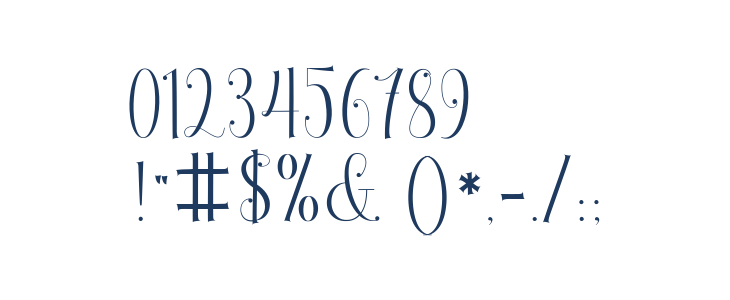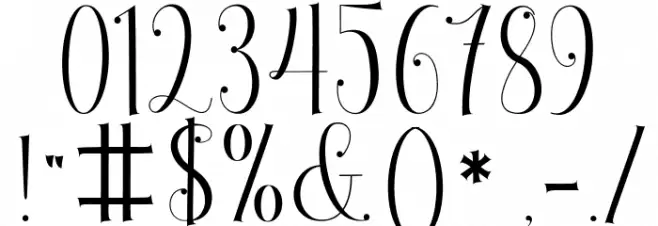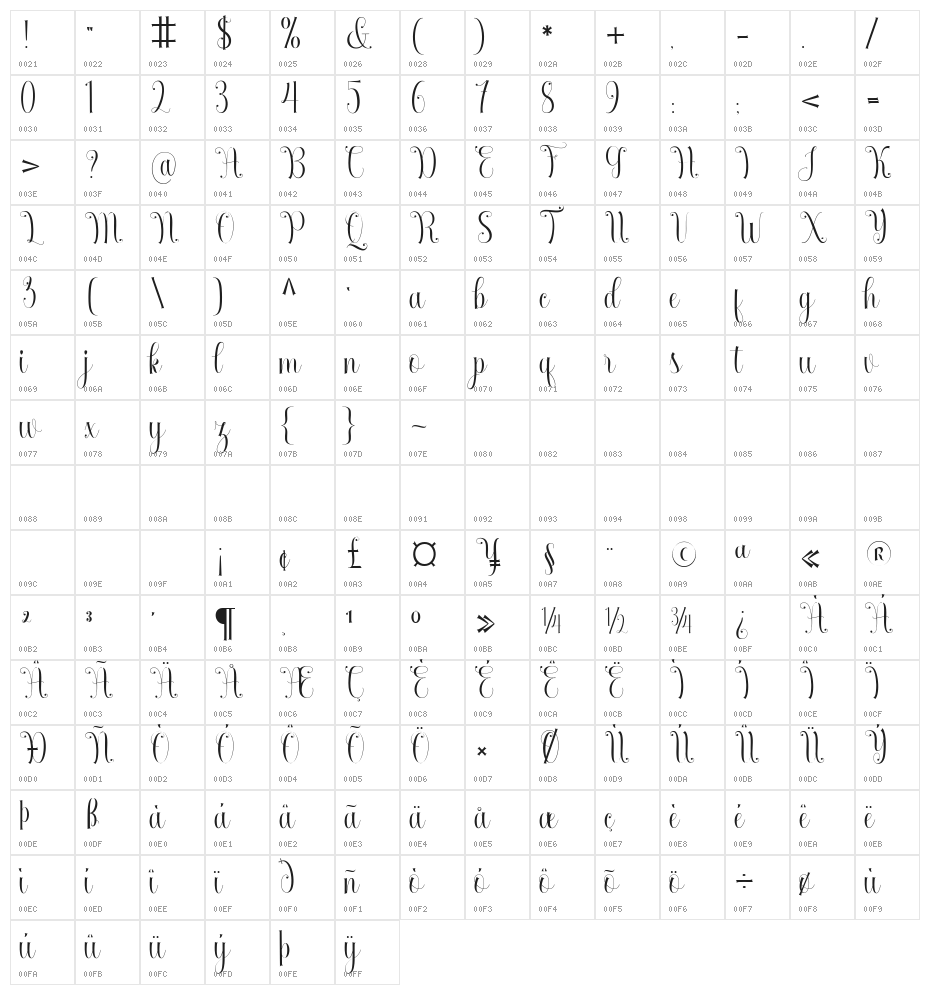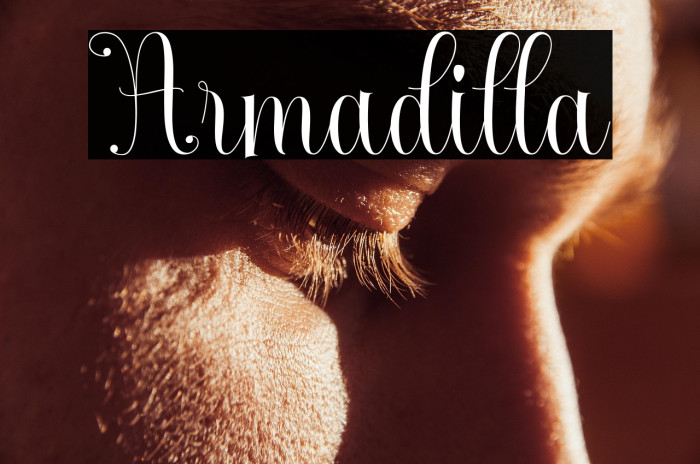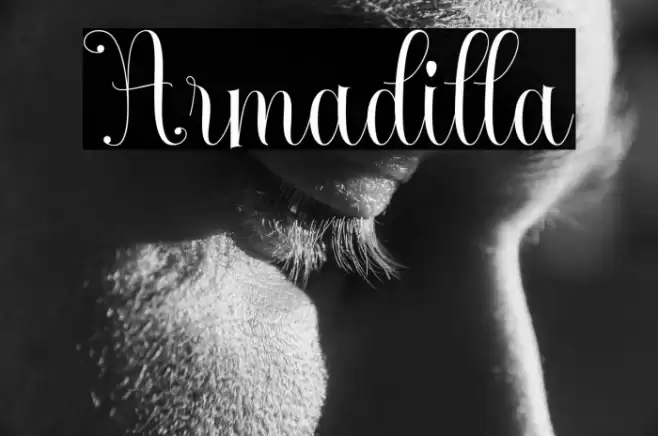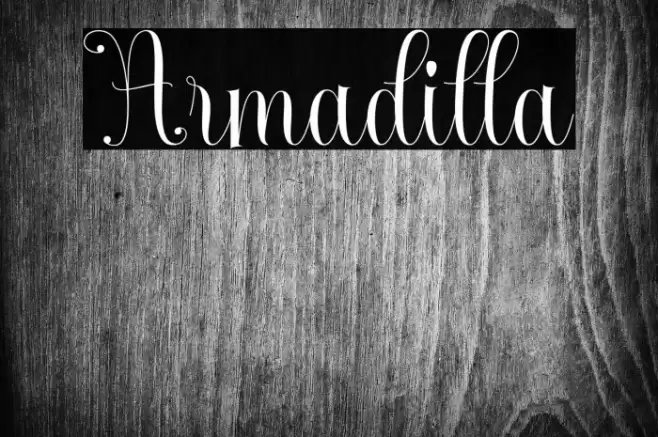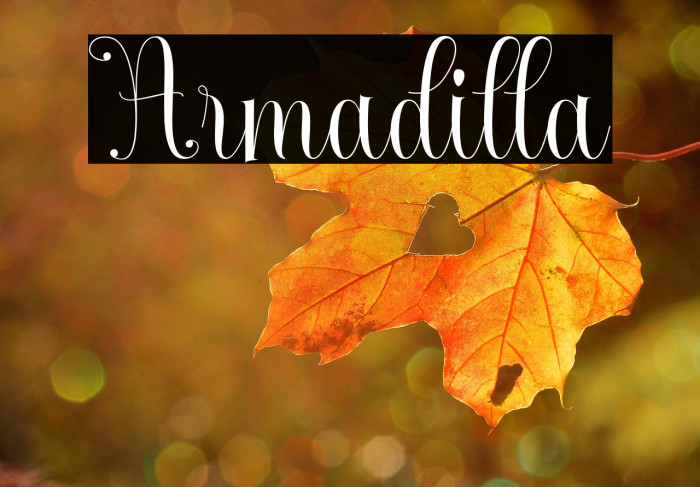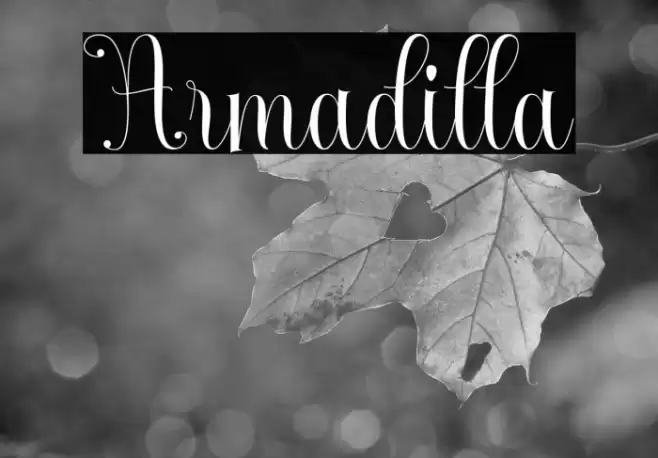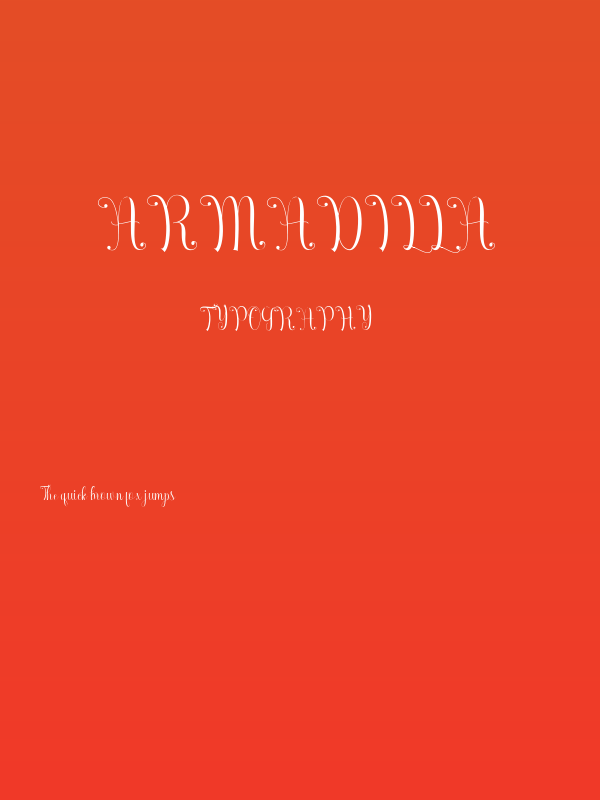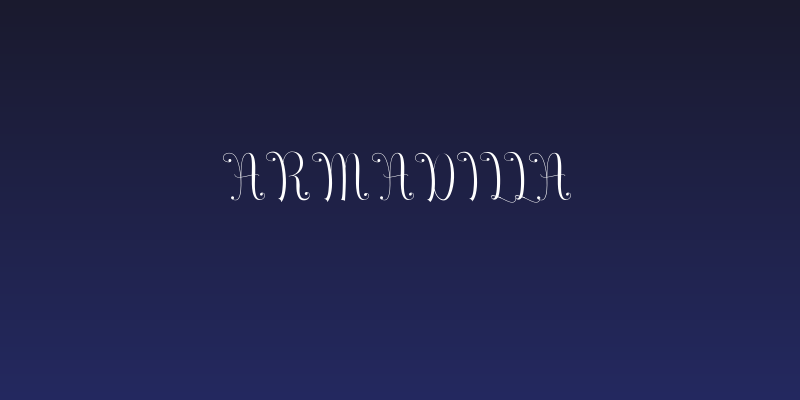
Armadilla Font
Armadilla Description
This font features an elegant and decorative style with a script-like appearance. The uppercase letters are adorned with intricate swirls and loops, adding a touch of sophistication and flair. The lowercase letters maintain a flowing, cursive style that complements the ornate uppercase characters. The numerals are consistent with the overall decorative theme, featuring slight embellishments that enhance their visual appeal. Special characters are designed with similar attention to detail, ensuring a cohesive look across all elements. This font's unique style makes it suitable for projects that require a touch of elegance and creativity.
| Use Case | Logos, Invitations, Decorative Text |
| Proposed Projects | Ideal for wedding invitations, greeting cards, branding, and decorative posters. |